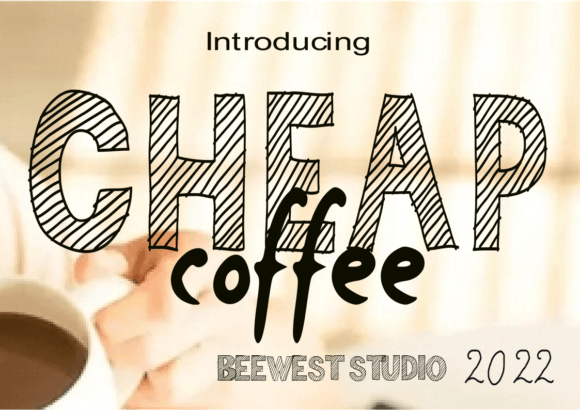
The Perfect Cup of Design: Introducing Cheap Coffee Font
Have you ever stumbled upon a font that perfectly captures the essence of a moment? For me, it was a late-night brainstorming session with a friend, surrounded by scribbled notes and coffee cups. The spark of creativity was ignited, and the idea for a design project began to take shape. As I searched for the perfect font to bring our concept to life, I stumbled upon the ‘Cheap Coffee Font’ – a retro old font that exudes wild energy and great taste.
This versatile font is not just a pretty face; it’s a powerful tool for designers looking to add a unique touch to their projects. From coffee boards to posters, and quotes to social media graphics, the Cheap Coffee Font is the perfect addition to any design.
Cheap Coffee Font Key Features
- Character Count: The font features a comprehensive character set of 450+ glyphs, including uppercase and lowercase letters, numerals, punctuation, and special characters.
- Unique Characteristics: This font boasts a distinctive, hand-drawn aesthetic with subtle imperfections and irregularities, giving it a unique, human touch that sets it apart from more formal, sans-serif fonts.
Designer Review: “Cheap Coffee Font”
I recently had the chance to work with the “Cheap Coffee Font” and I’m here to give you my honest opinion.
The “Cheap Coffee Font” has some great qualities that make it a decent choice for casual use. It’s:
- Easy to read: The font has a clear, legible structure that makes it suitable for body text.
- Fun and quirky: The font’s playful nature can add a touch of personality to your designs.
While the “Cheap Coffee Font” has its strengths, it also has some notable weaknesses:
- Lack of sophistication: The font’s playful nature can come across as immature or unprofessional in more formal designs.
- Not ideal for headlines: The font’s legibility can suffer when used for larger text sizes or headings.
The “Cheap Coffee Font” is a decent choice for casual designs or personal projects where you want to add a bit of whimsy. However, for more formal or professional projects, you may want to consider a more sophisticated font option.
Tip: Use the “Cheap Coffee Font” to add a playful and quirky touch to your designs, especially for social media graphics and advertisements.
Tip: Use the “Cheap Coffee Font” to create eye-catching headlines and titles in your designs.
Tip: Use the “Cheap Coffee Font” to add a personal touch to your presentations and documents.
The “Cheap Coffee Font” is ideal for:
- Social media graphics and advertisements
- Playful and quirky designs
Remember to use the “Cheap Coffee Font” in moderation, as it can be quite bold and attention-grabbing.